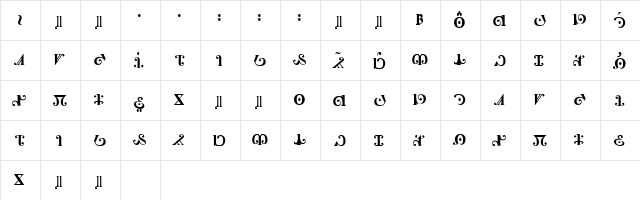
Times New Elven Regular Font Preview
Times New Elven Regular
Design Context for Times New Elven Typeface
Times New Elven is a composed and adaptable typeface that performs quietly and consistently across a wide range of design contexts.